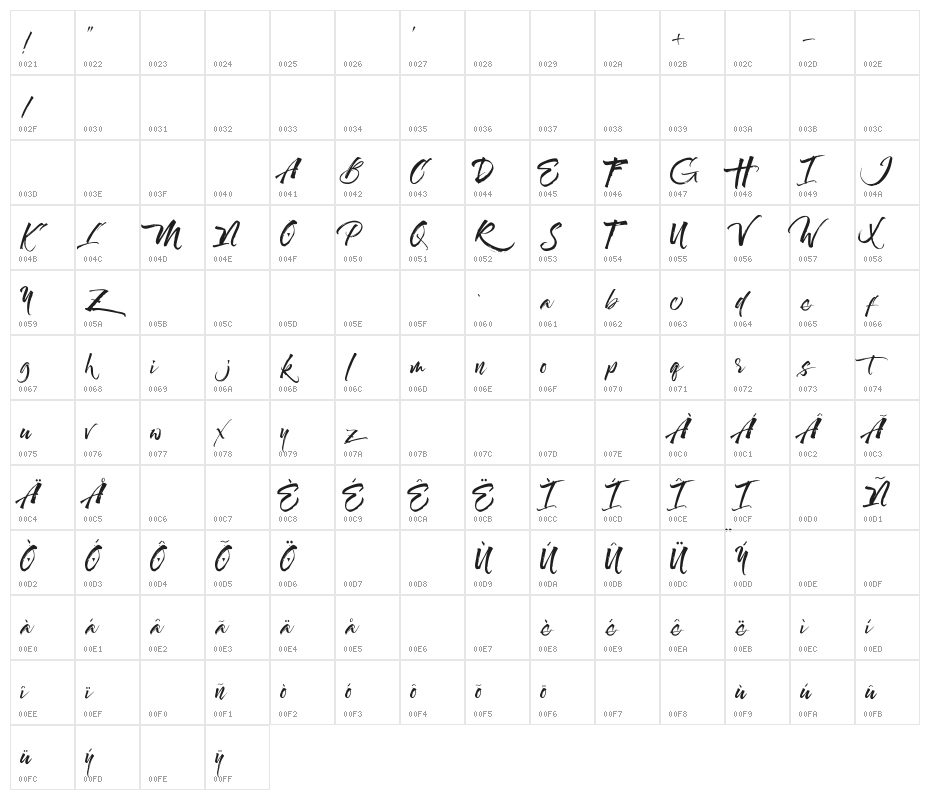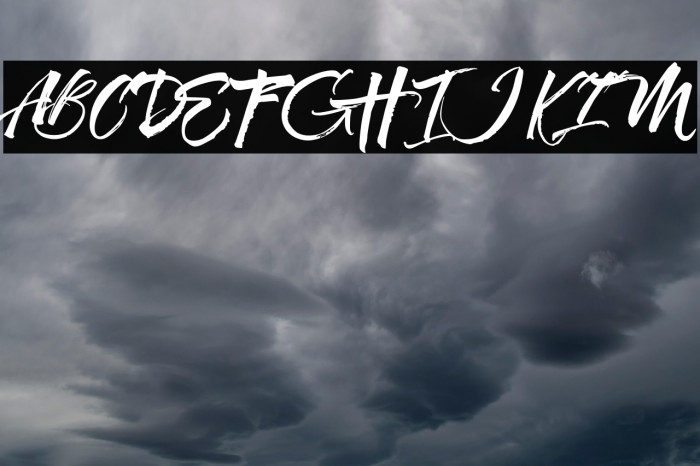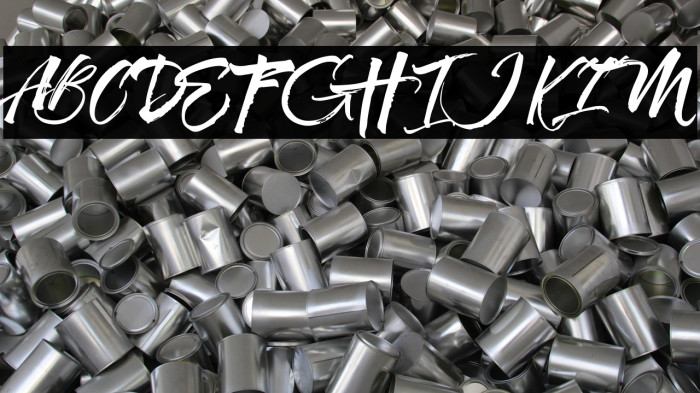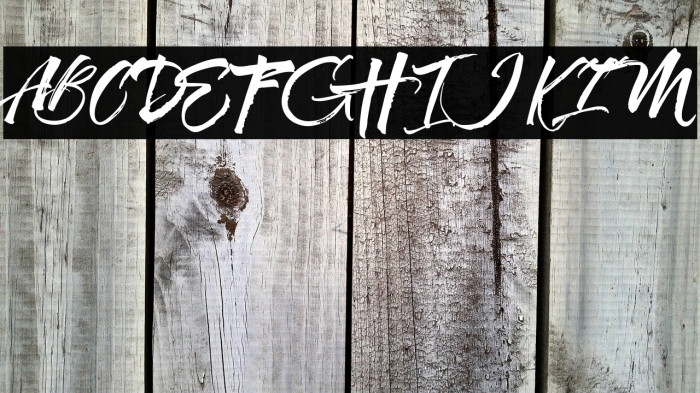
Maximaz Font
Maximaz Description
This font features a dynamic and expressive handwritten style, characterized by its bold, sweeping strokes and fluid motion. The letters are crafted with a sense of spontaneity, giving them a lively and energetic appearance. The uppercase and lowercase letters maintain a consistent style, with some letters exhibiting unique flourishes that add to the overall artistic feel. The numbers and special characters are designed to complement the alphabet, maintaining the same bold and expressive quality. This font is ideal for projects that require a personal touch or a creative flair.
| Use Case | Logos, Headlines, Creative projects |
| Proposed Projects | Ideal for branding, invitations, greeting cards, and creative projects that require a personal touch. |